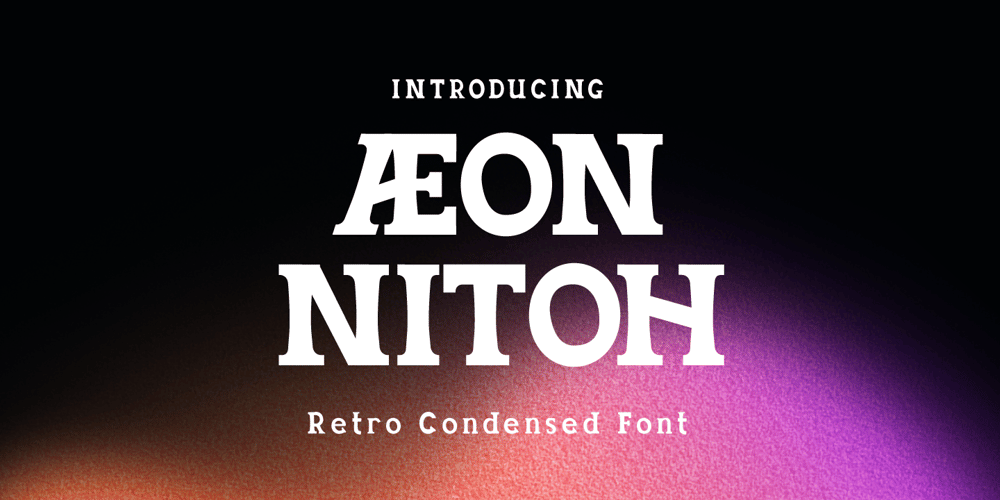
Aeon Nitoh
Aeon Nitoh font
Aeon Nitoh Font Family was designed by Murozakul Akhsan and published by Trabas Kriya. Aeon Nitoh contains 1 styles and family package options. Aeon Nitoh is a retro font that takes you back in time. Its vintage-inspired characters are perfect for designs with a nostalgic feel. Whether you’re creating a poster for a retro-themed event or designing a logo for a brand with a vintage vibe, Aeon Nitoh is the perfect choice.What’s Included:- All glyphs and Feature- We highly recommend using a program that supports OpenType features and Glyphs panels like many Adobe apps and Corel Draw so that you can see and access all Glyph variations.- PUA Encoded Characters, Fully accessible without additional design software.- Fonts include Multilingual: Support for 85 languages. Afrikaans, Albanian, Asu, Basque, Bemba, Bena, Breton, Catalan, Chiga, Cornish, Croatian, Czech, Danish, Dutch, Embu, English, Esperanto, Estonian, Filipino, Finnish, French, Friulian, Galician, Gusii, Hungarian, Indonesian, Irish, Italian, Kabuverdianu, Kalenjin, Kamba, Kikuyu, Kinyarwanda, Latvian, Lithuanian, Lower, Sorbian, Luo, Luxembourgish, Luyia, Machame, Makhuwa-Meetto, Makonde, Malagasy, Maltese, Manx, Meru, Morisyen, North, Ndebele, Norwegian Bokmål, Norwegian Nynorsk, Nyankole, Oromo, Polish, Portuguese, Quechua, Romanian, Romansh, Rombo, Rundi, Rwa, Samburu, Sango, Sangu, Scottish, Gaelic, Sena, Serbian, Shambala, Shona, Slovak, Slovenian, Soga, Somali, Spanish, Swahili, Swedish, Swiss German, Taita, Teso, Turkish, Upper Sorbian, Uzbek (Latin), Volapük, Vunjo, Walser, Zulu.